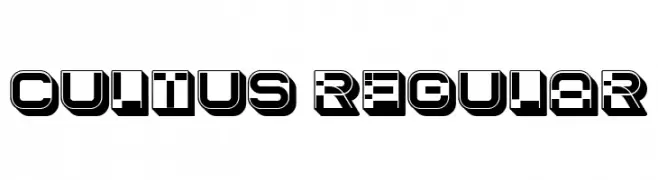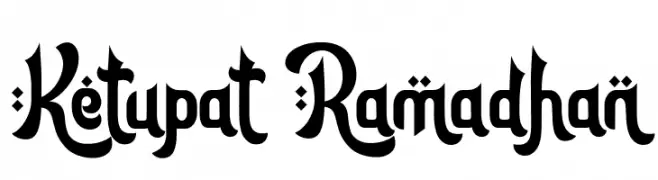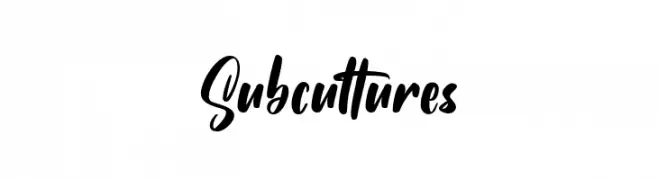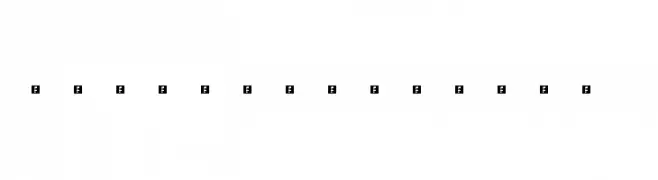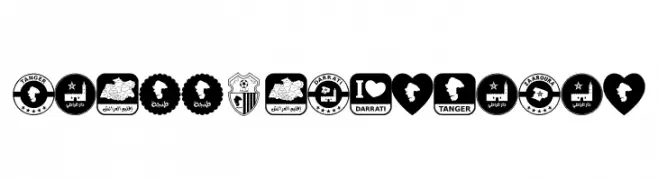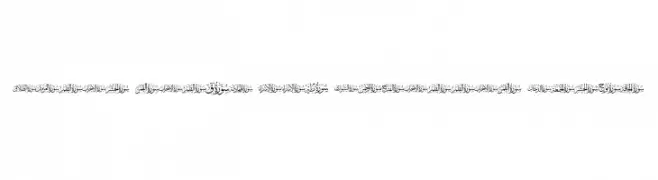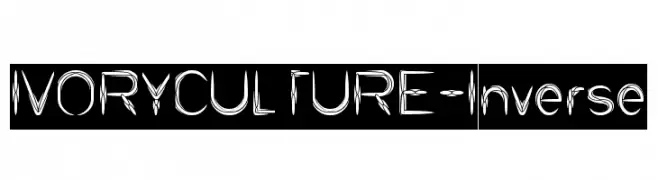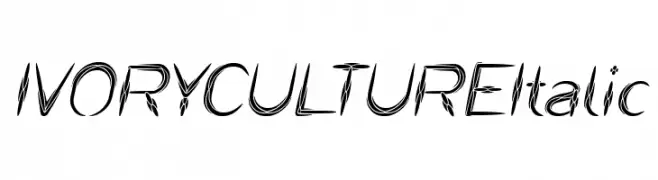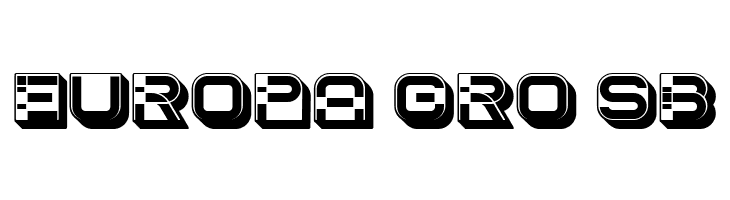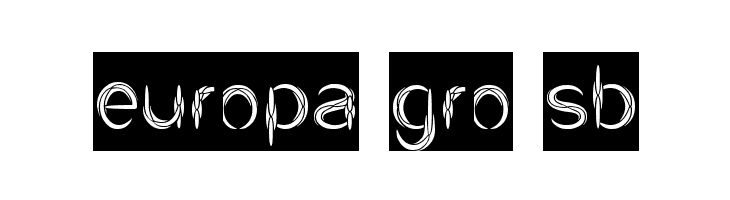
A bold, geometric font with a 3D effect, perfect for modern and striking designs.
A decorative and bold font with intricate, cultural-inspired details.
A bold, expressive script font with a dynamic, handwritten style.
A decorative font with intricate, culturally inspired illustrations replacing traditional letterforms.
An elegant Arabic script with flowing, cursive strokes and artistic flair.
A bold collection of Moroccan-themed icons and Arabic calligraphy.
An elegant and intricate traditional Arabic script ideal for religious texts.
An artistic and decorative font with intricate woven patterns.
A dynamic italic font with a brush-like texture and expressive strokes.
An elegant and flowing script font with sophisticated loops and swirls.